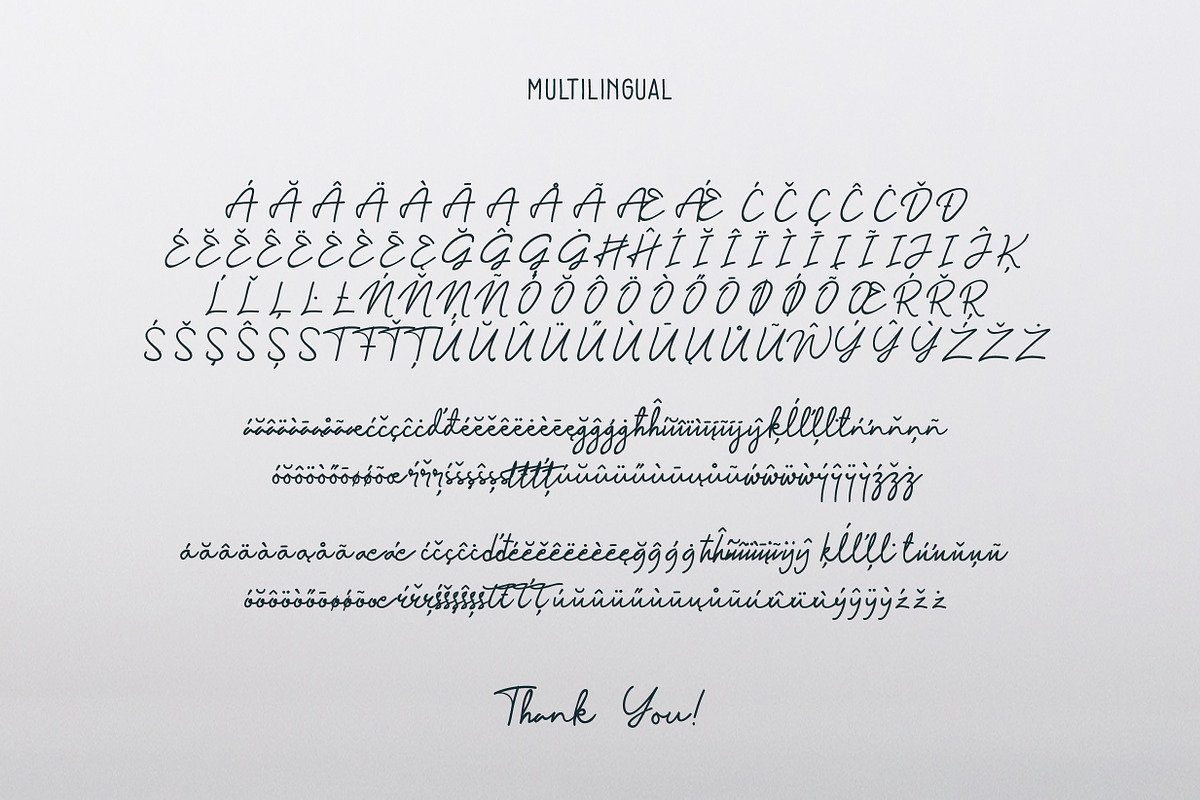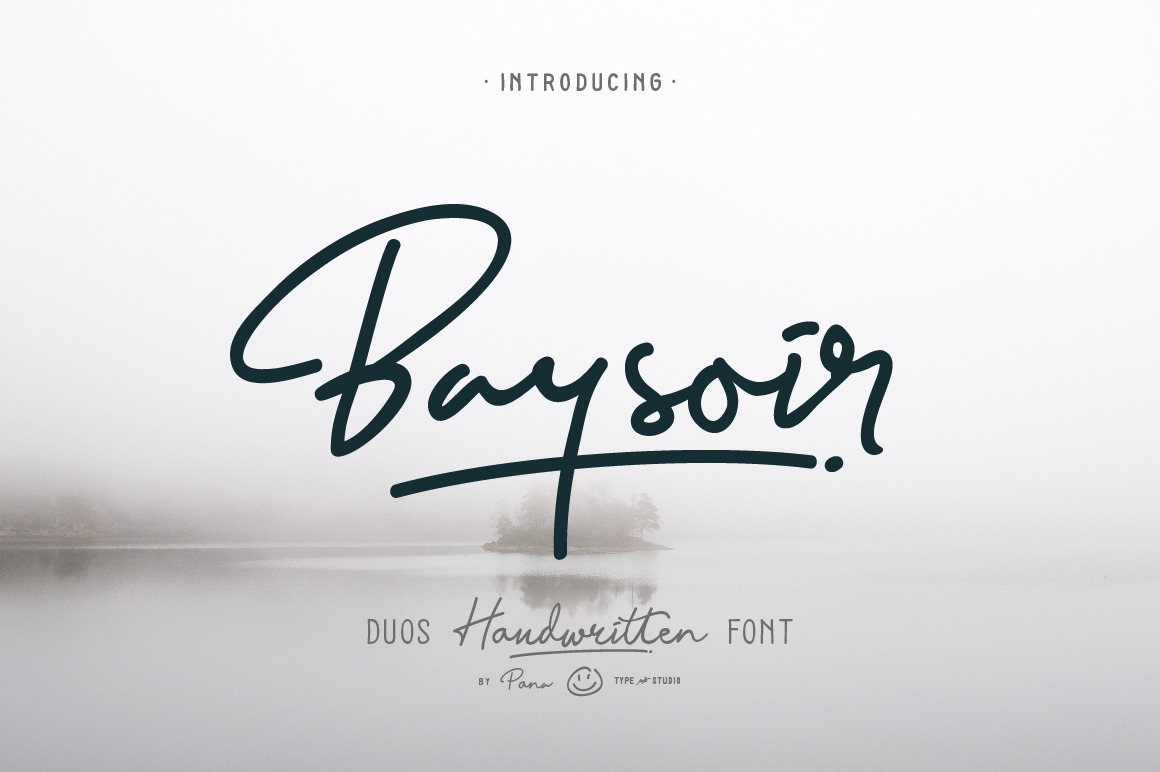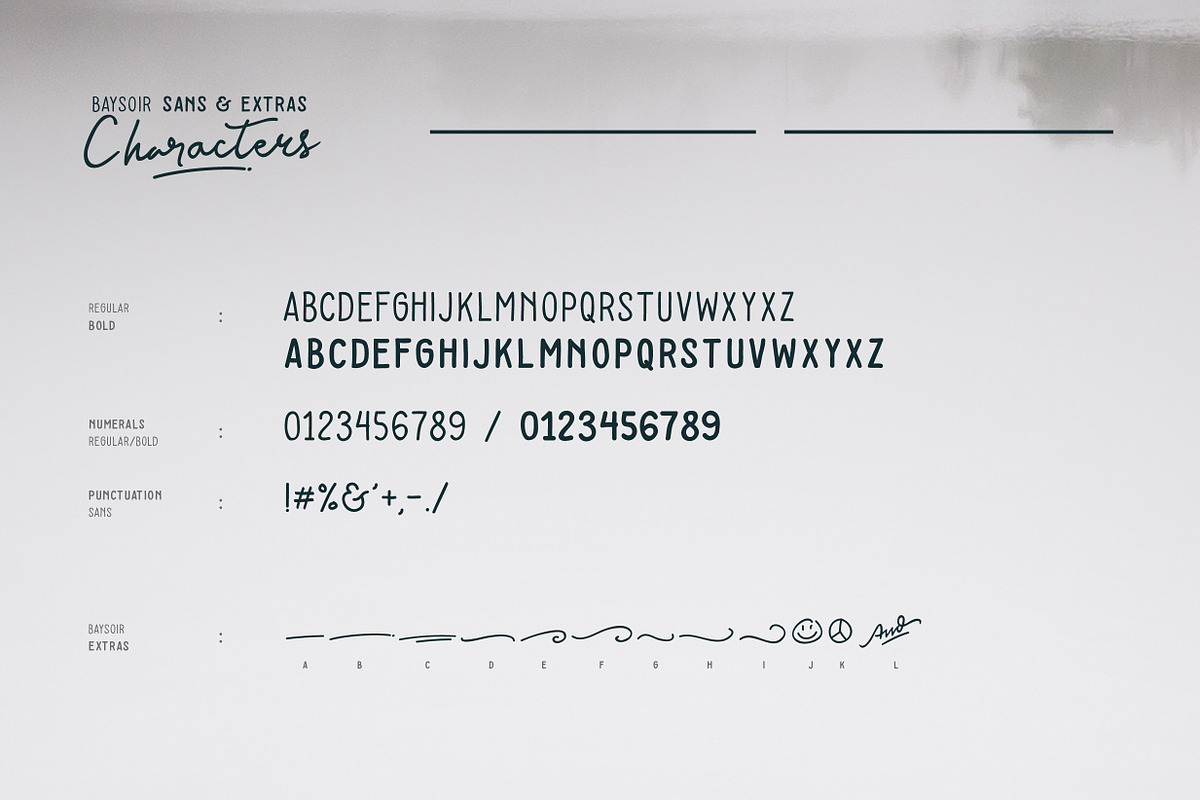
Baysoir - handwritten signature font
Baysoir™ is a handwritten signature font, available on script and Display Sans serif typeface. These two lovely fonts would be perfect to combine in your design. we develop Its with natural and fresh look, made with hand painted and carefully crafted.